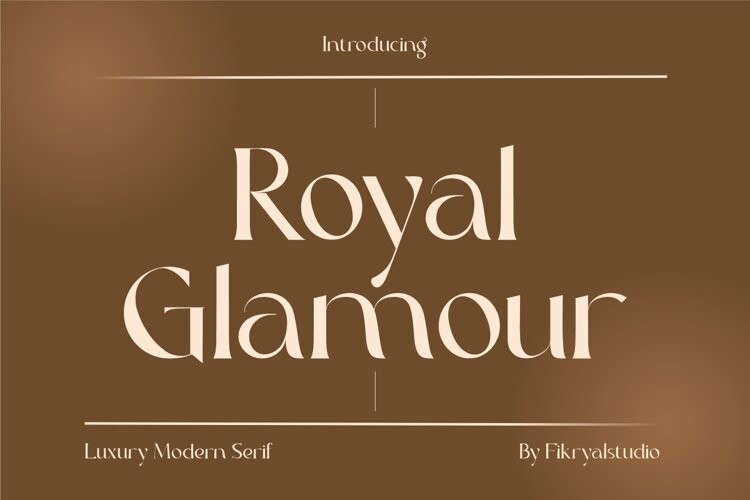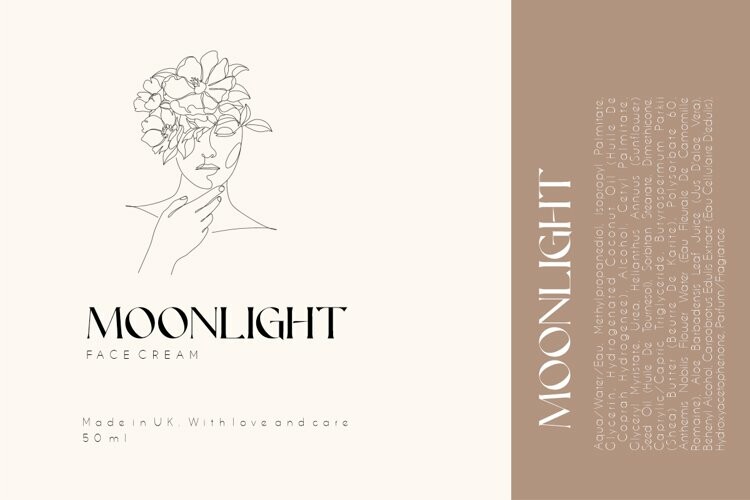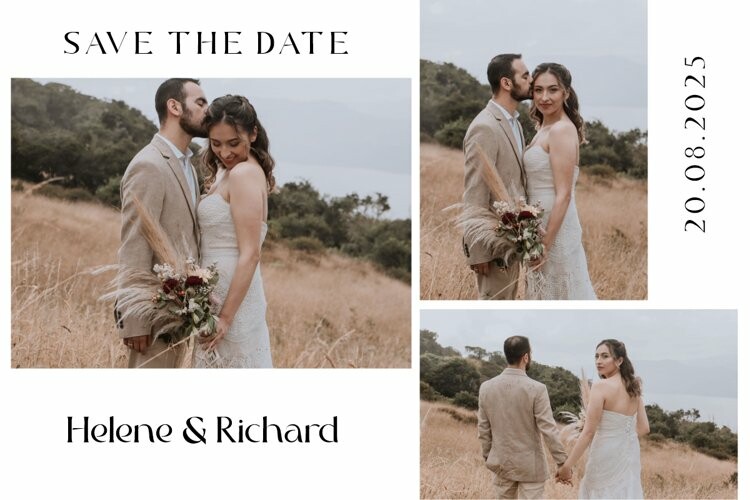
Royal Glamour Font
Royal Glamour FontRoyal Glamor is a modern serif font with a luxurious and elegant feel. With its thin, bold serif lines, this font can convey a professional and profound impression, while still looking friendly and inviting.
The “Royal Glamor” font has a clean, regular Typeform, with symmetrical and proportionate parts. This makes them easy to read and suitable for use with a variety of media types, such as brochures, magazines and logo designs.
With the right color, this font can provide a strong contrast effect, giving a design an exclusive and luxurious impression. Perfect for projects that require a serious feel, but are still modern and elegant.